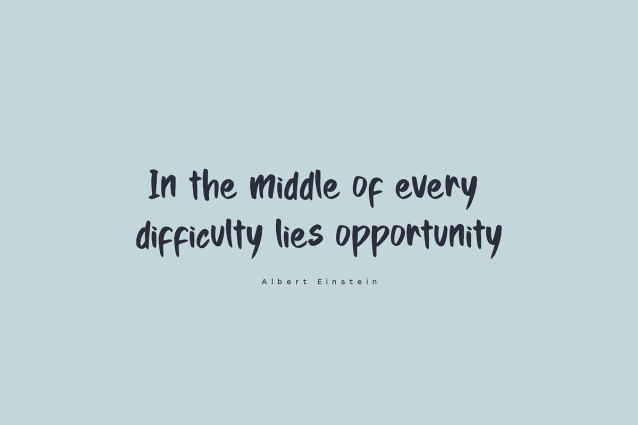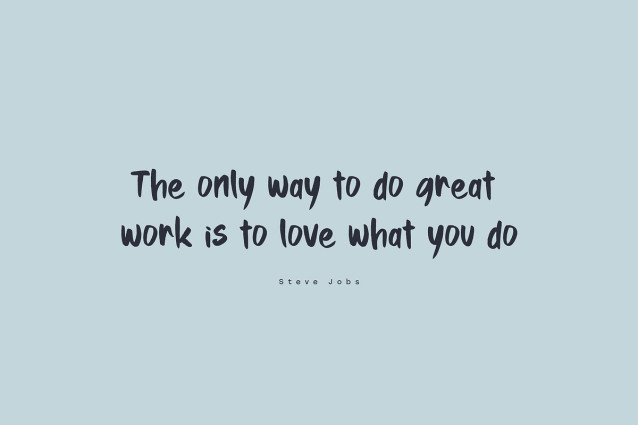
Rottenham Brush Font
Rottenham Brush is a beautiful handwritten font with brush style. Is a font style that is made with handwritten scratches shapes font characters are very beautiful. Can be applied to support the graphic appearance of the product to be more attractive and unique. This font is very nice for designing magazine previews and covers design, logo designs, shirt designs, and other graphic needs.